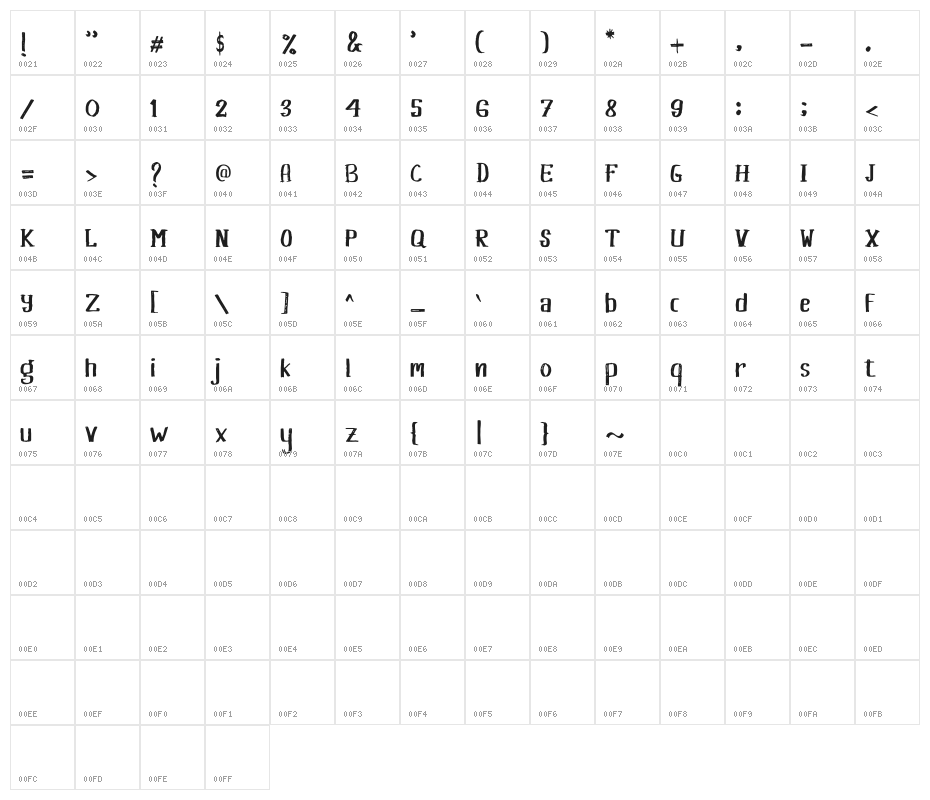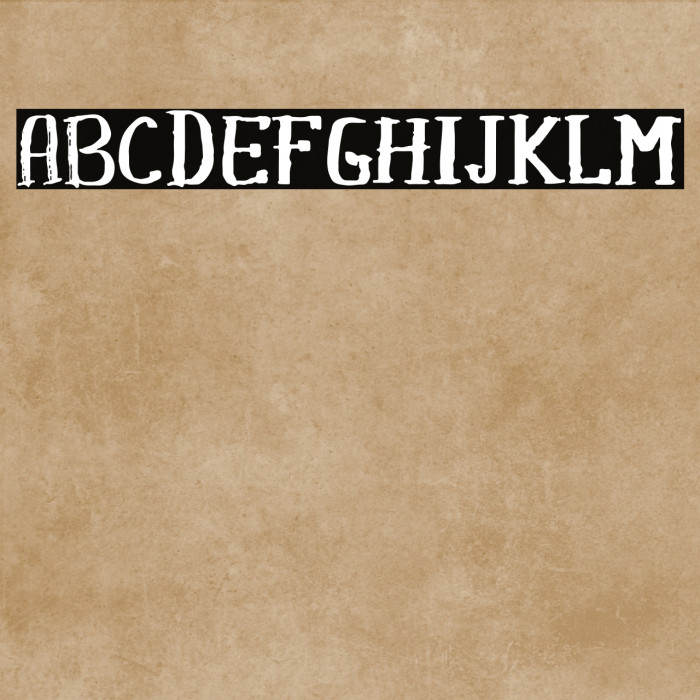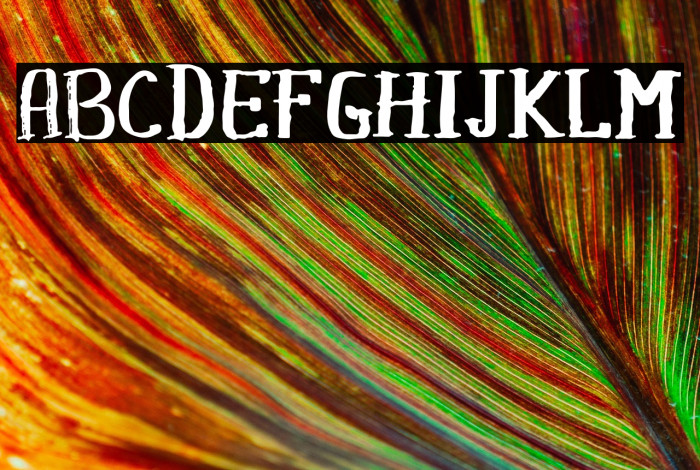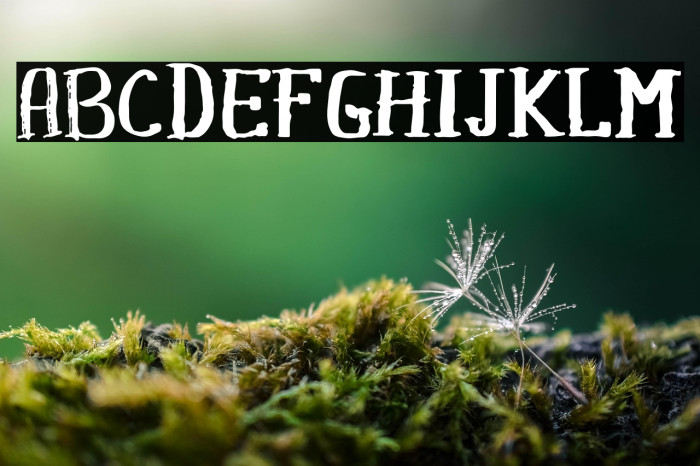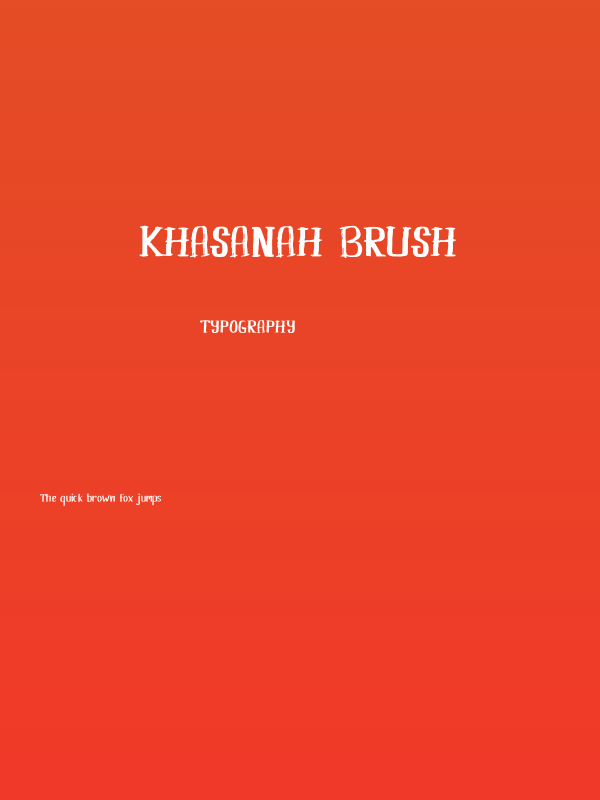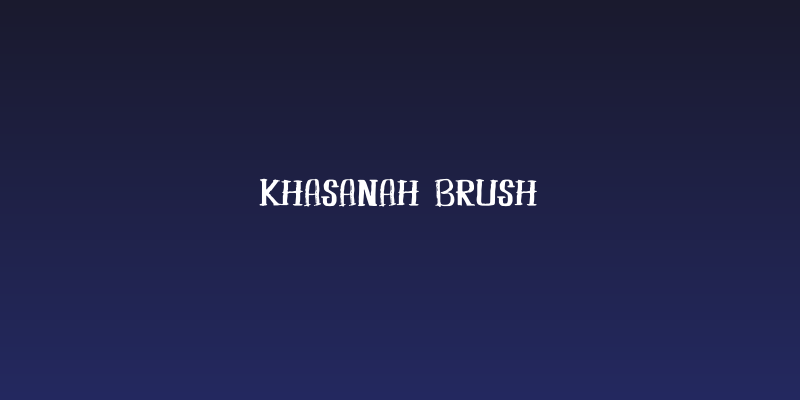
Khasanah Brush Font
Khasanah Brush Description
This font exudes a bold, artistic flair with its brush-like strokes that give it a hand-painted appearance. The uppercase letters are robust and dynamic, while the lowercase letters maintain a consistent flow, enhancing readability. The numbers and special characters are crafted with the same attention to detail, ensuring a cohesive look across all glyphs. The overall design is both expressive and versatile, making it suitable for a variety of creative projects. Its unique style is perfect for capturing attention and adding a personal touch to any design.
| Proposed Projects | Ideal for branding, posters, invitations, and any project requiring a personal, artistic touch. |